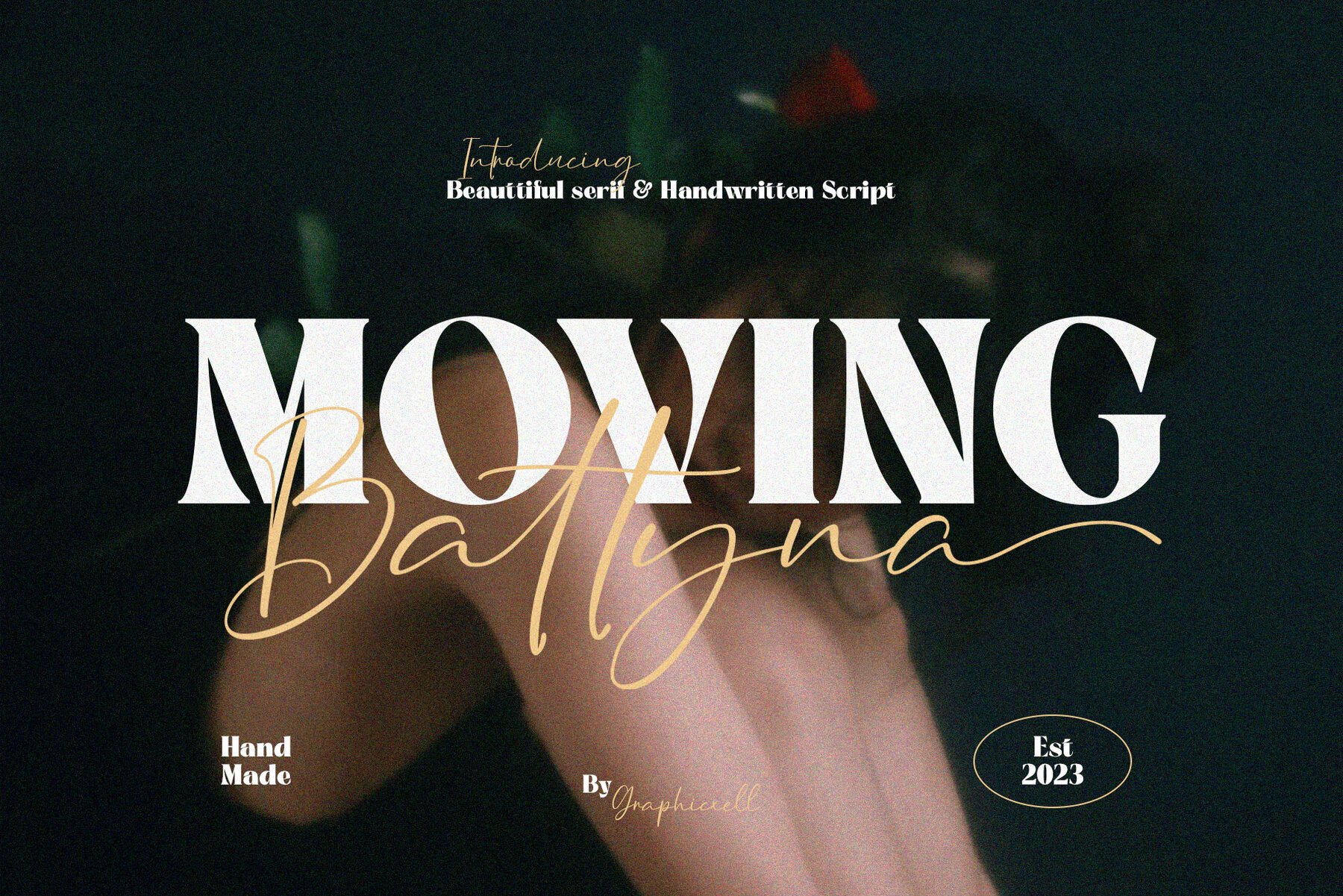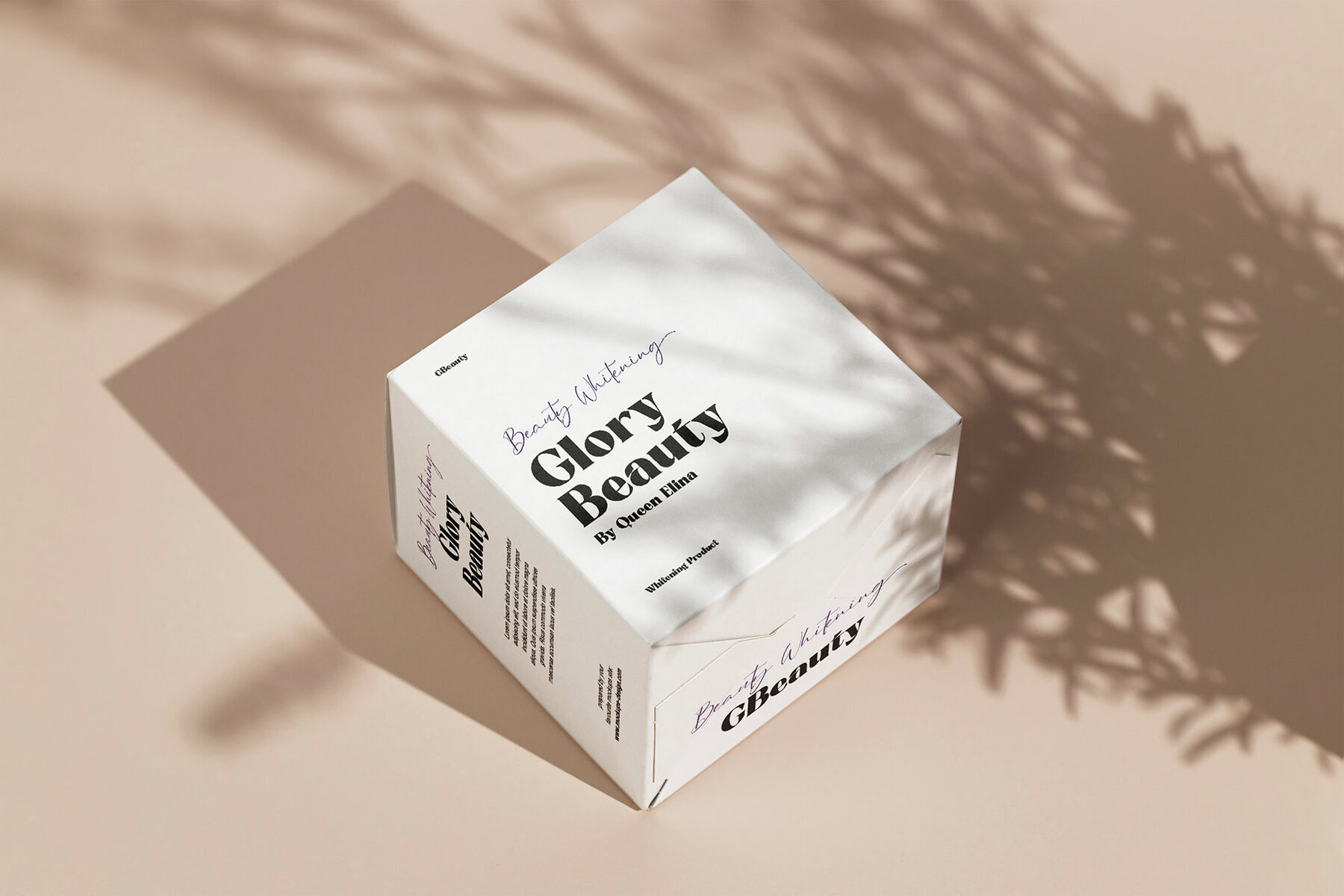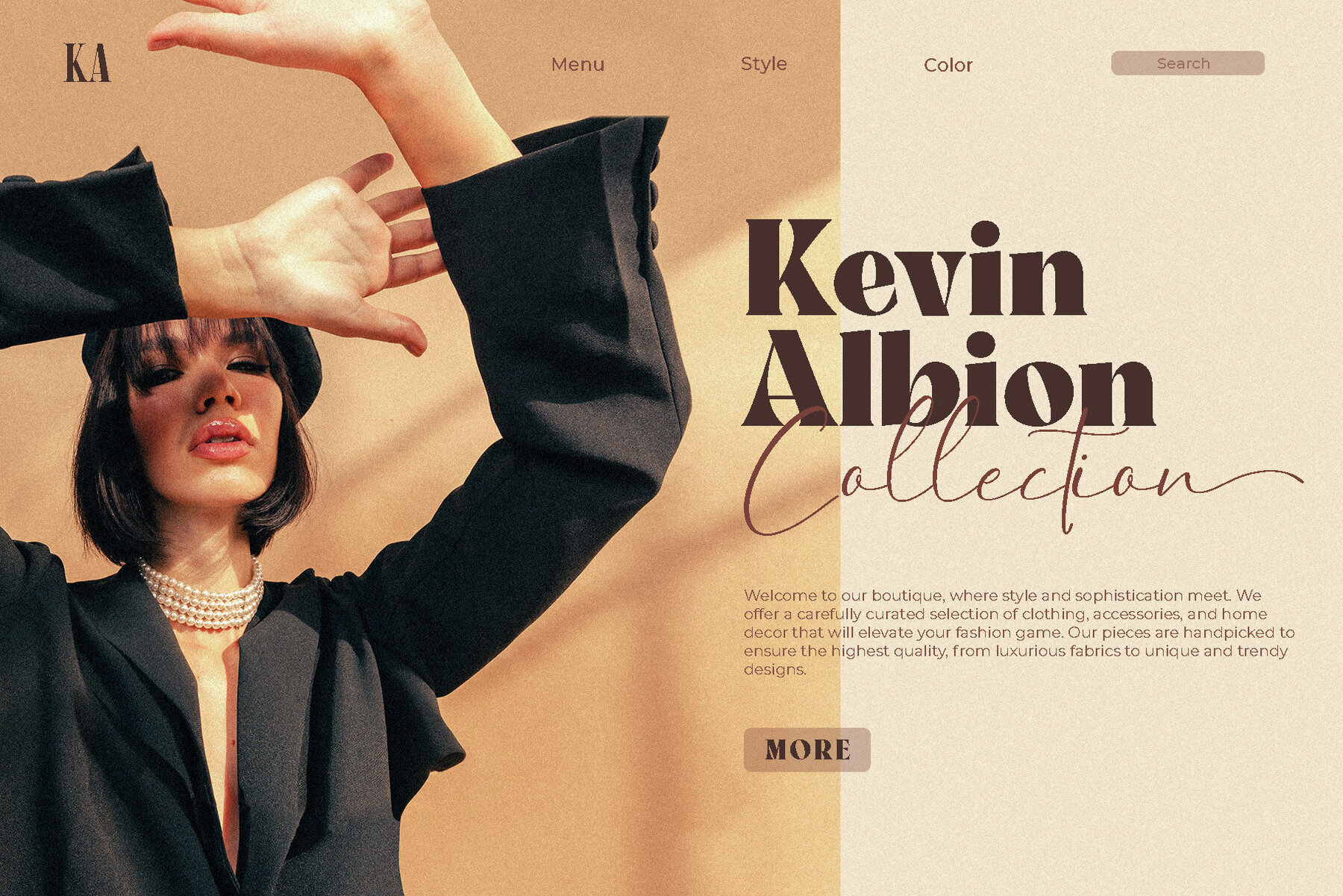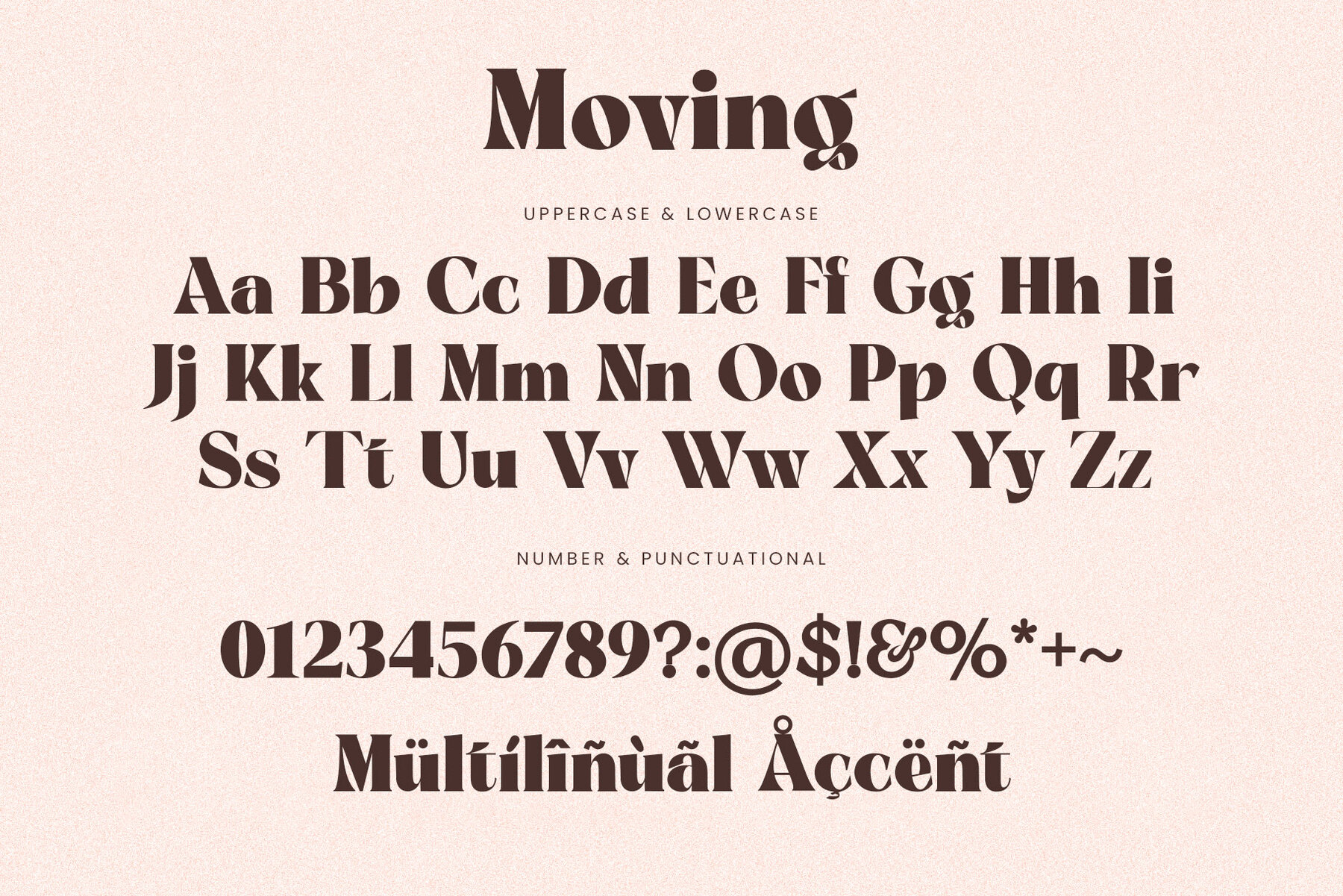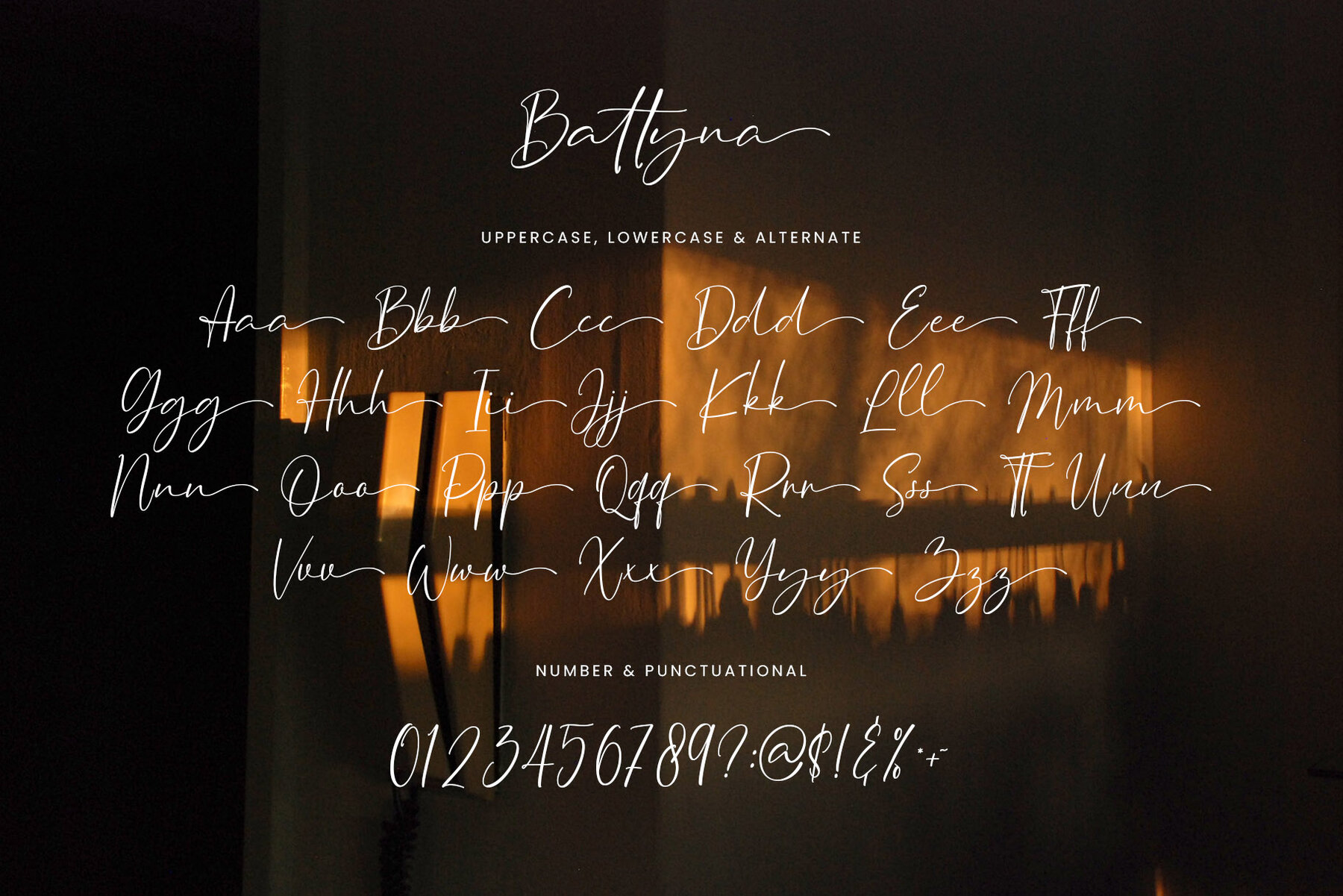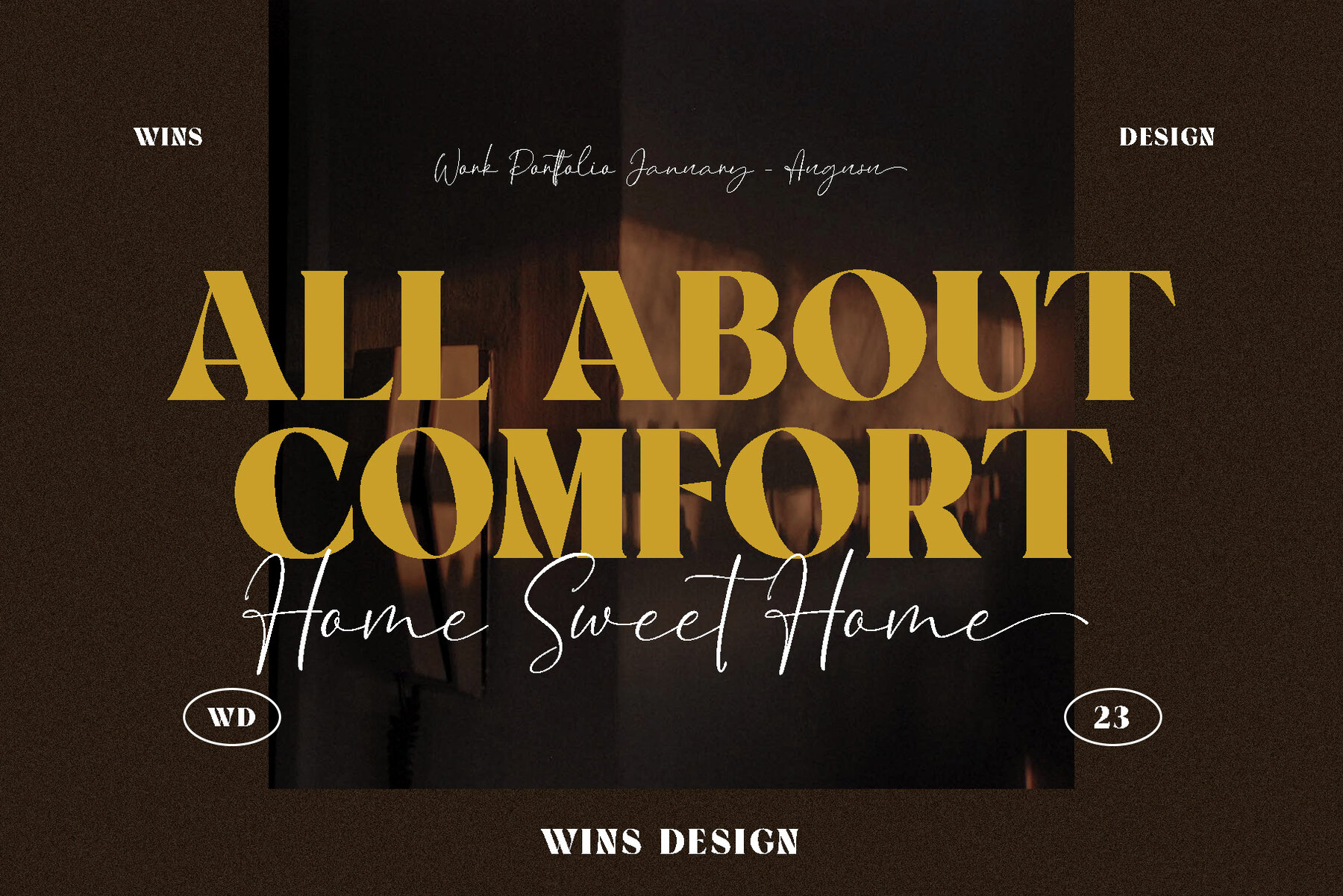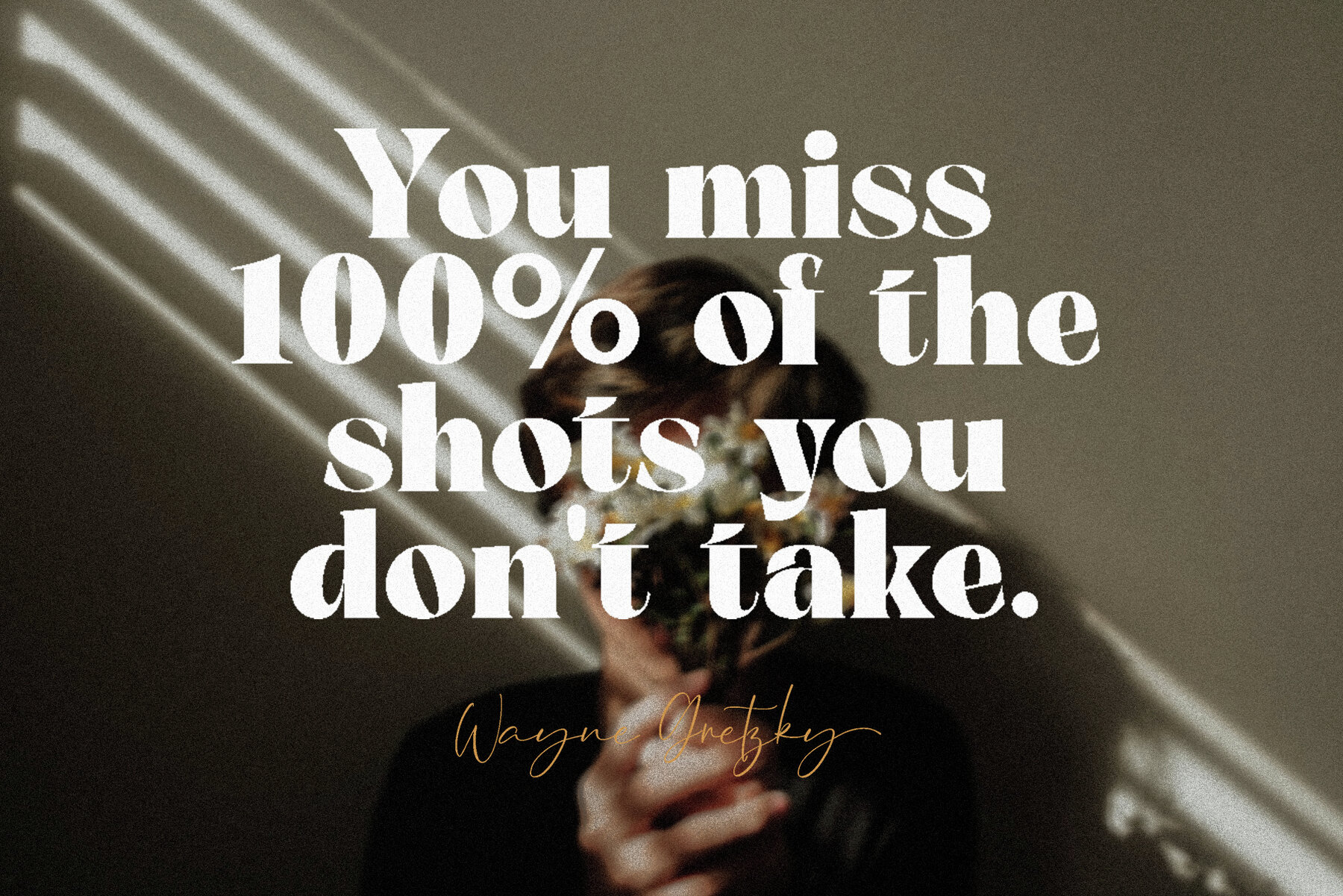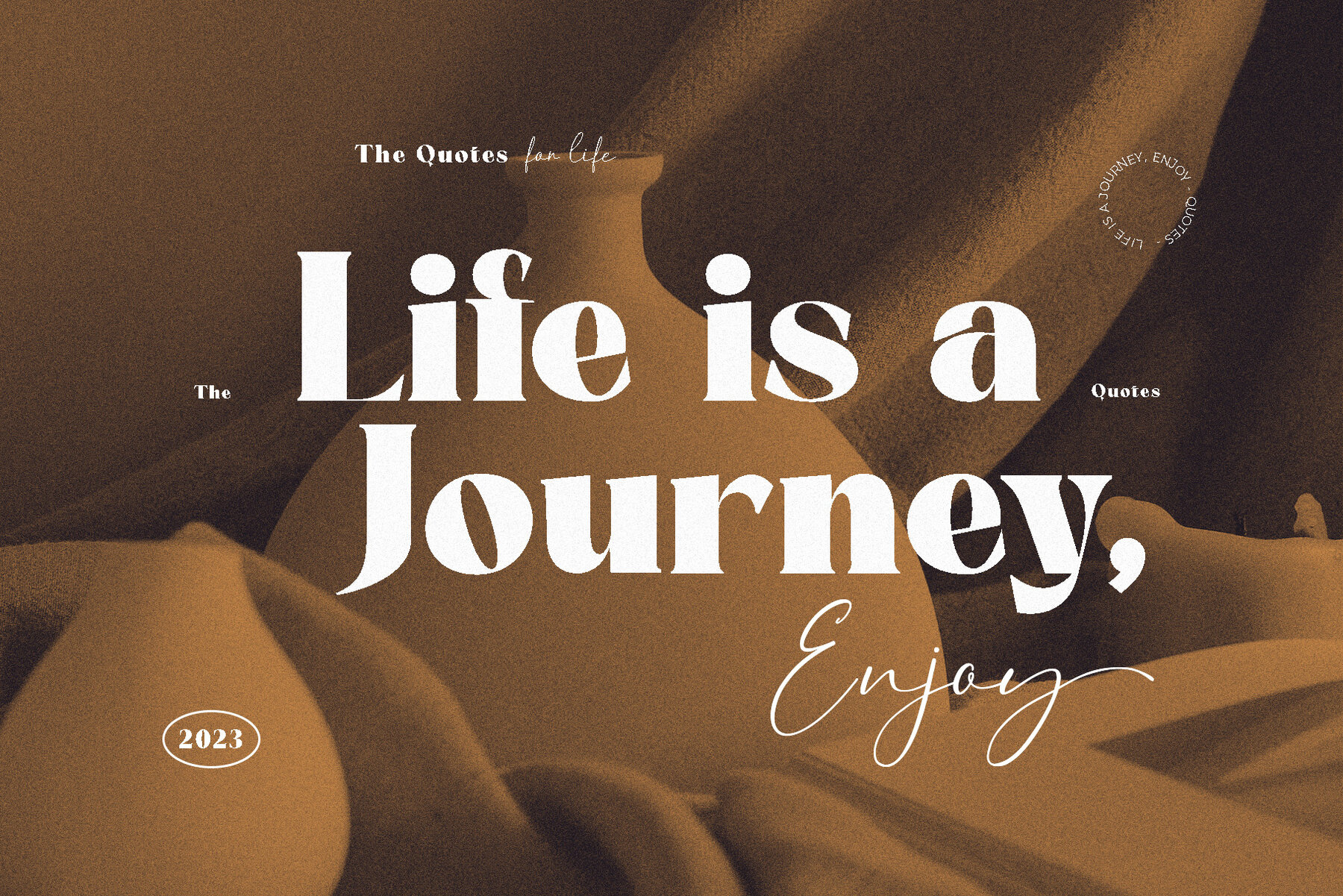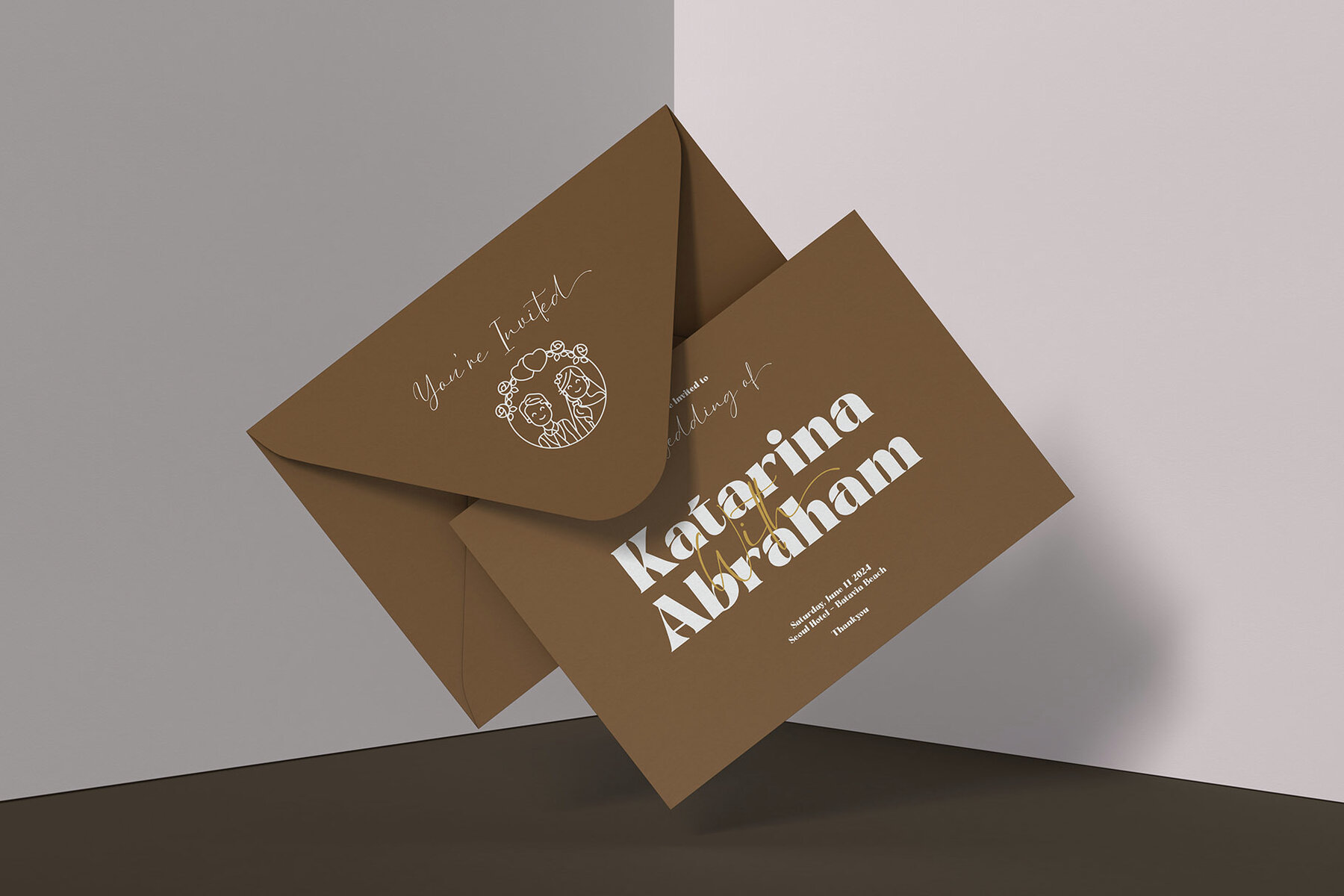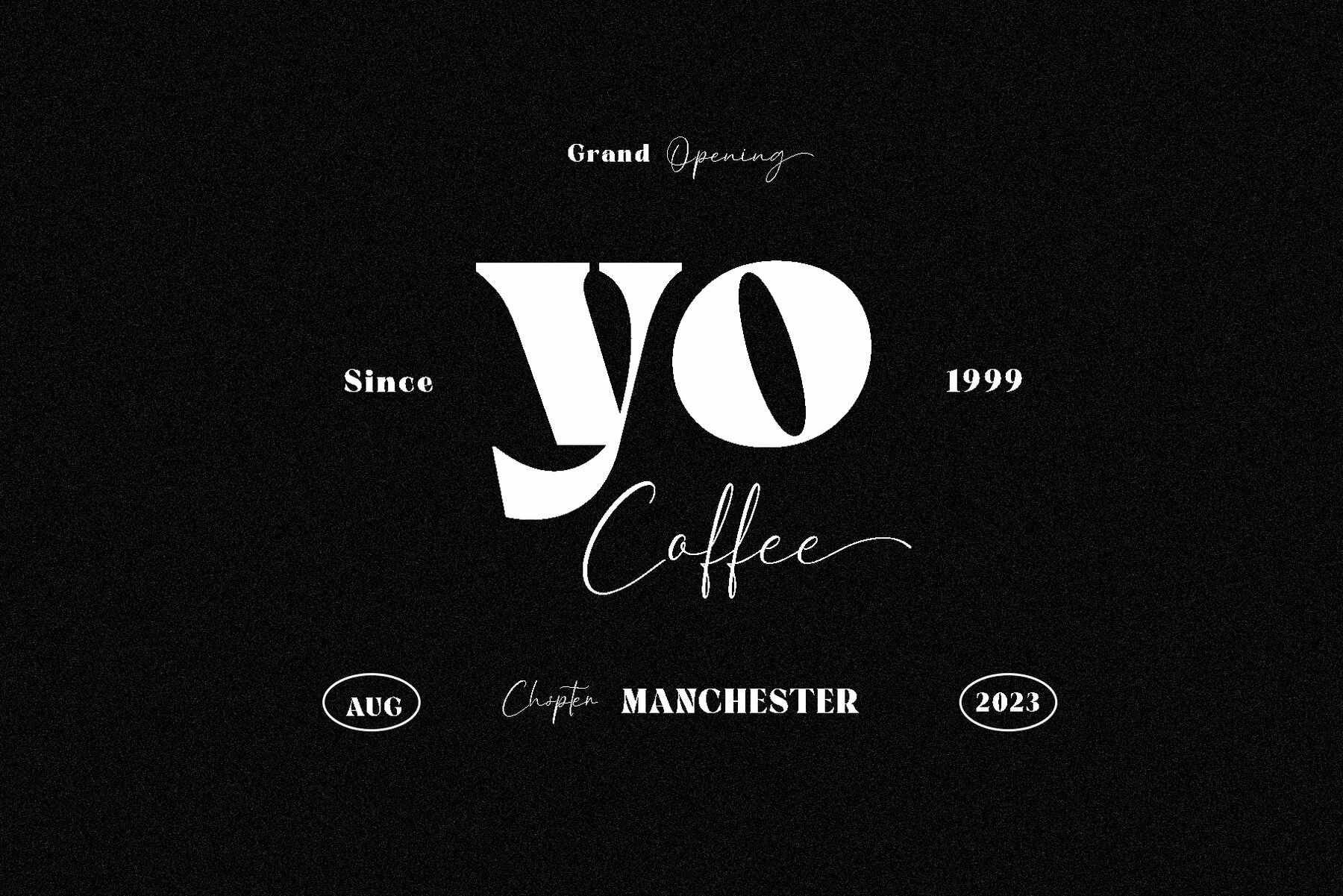
Moving Battyna Font
Leave a lasting impression in the vast world of design and marketing with the unique and distinctly elegant serif typeface, Moving Battyna Ramita. Designed by the renowned designer, Graphicxell, this innovative font merges the understated subtlety of serifs and a refreshingly modern style to create a rare blend of aesthetics. Its versatility makes it an ultimate accomplice for a diverse range of projects – be it branding projects, logos, or wedding designs. Its emphasis on classiness and modernity can undoubtedly evoke visual appeal, thereby enhancing the user engagement and recall value. Intuitively created for graphic designers and marketing firms, the Moving Battyna Ramita font is an unclaimed treasure waiting to transform ordinary print and digital media into a sparkling masterpiece. It has a unique characteristic of drawing eyes to its innovative shapes, while still retaining a luxurious sleekness that resonates with its name - 'Battyna Ramita', giving an irresistible charm to your work. No detail is too small when you use the Moving Battyna Ramita, a creation that personifies design innovations. Unique Features:A Game Changer in Typography: Moving Battyna Ramita by Graphicxell